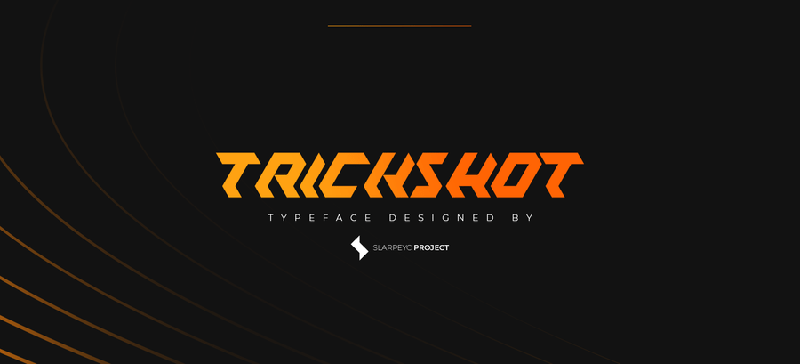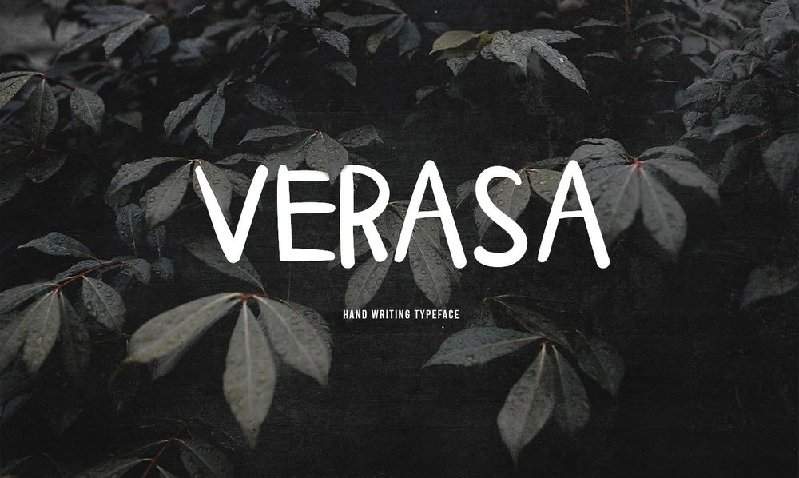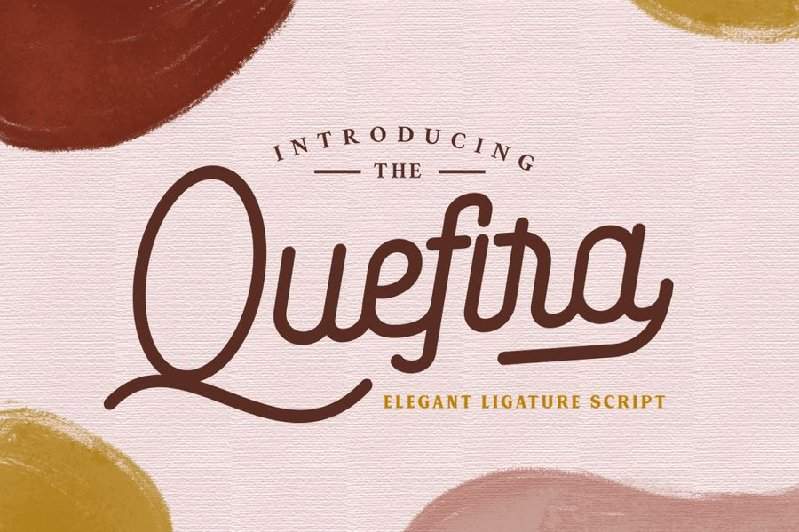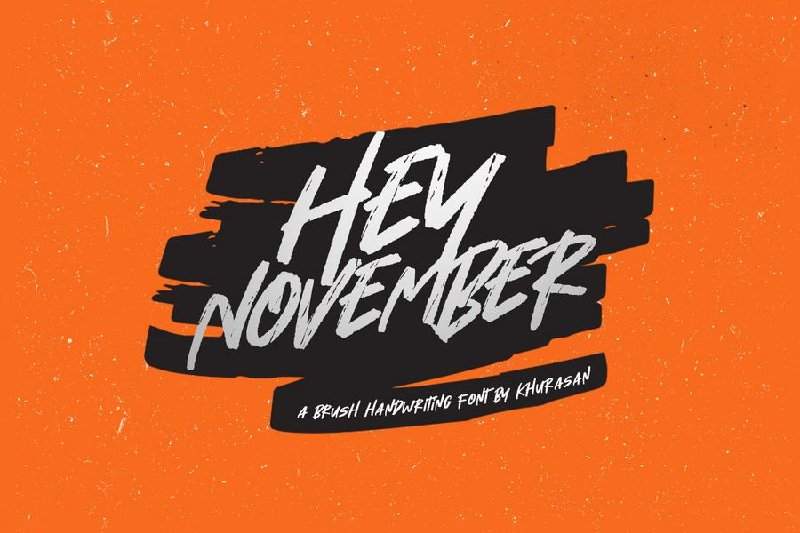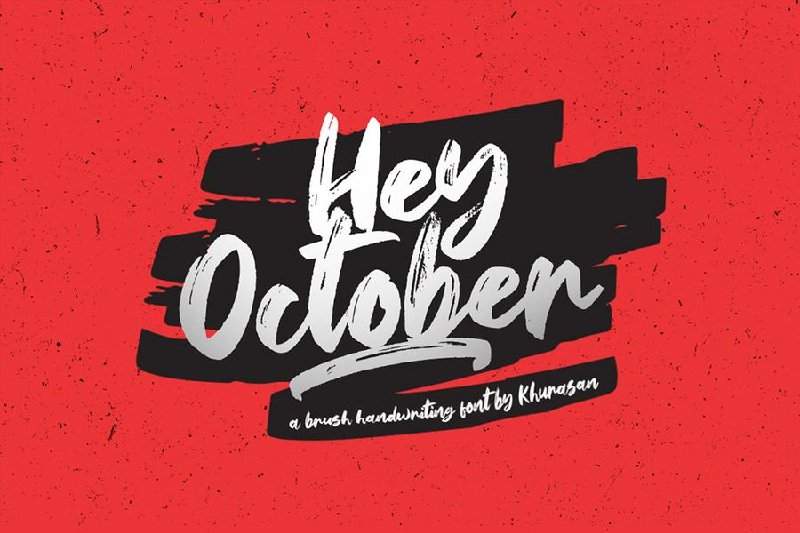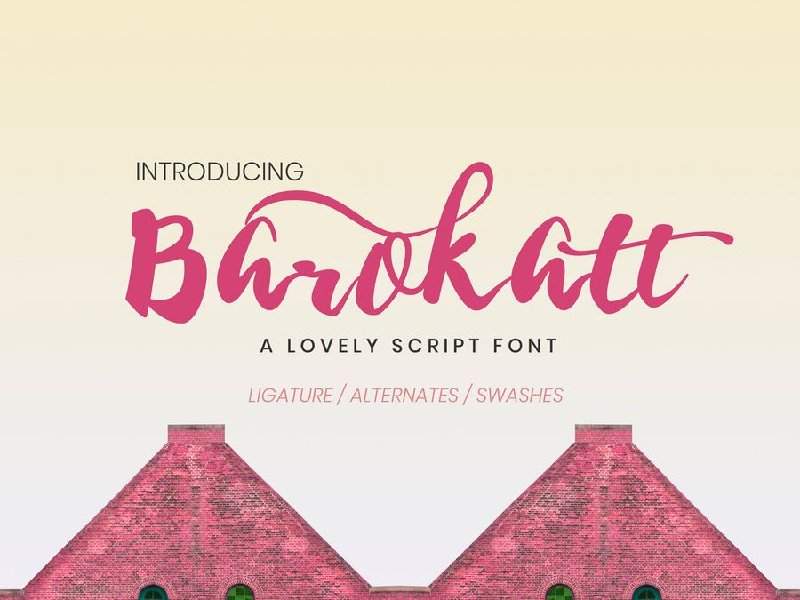
Curated Collection of Stunning Free Fonts for Designers
Every creative project deserves the perfect font to bring the design to life. Whether you’re working on branding, web design, or social media graphics, the right typeface can dramatically improve your work. A strong font library is essential for any designer, helping your projects stand out with style and professionalism.
Why Designers Need Free Fonts
Using free fonts allows designers to experiment with different typography styles without worrying about budget constraints. From modern sans-serif to decorative serif fonts, having access to a diverse font collection ensures your design projects remain fresh and unique. These free fonts for designers are ideal for both digital and print projects, including logos, posters, presentations, and web interfaces.
Explore Our Handpicked Free Fonts Collection
Our curated collection of stunning free fonts features top-quality typefaces for all creative needs. This selection includes bold display fonts, elegant script fonts, playful handwritten fonts, and versatile sans-serif fonts — all ready to enhance your branding, web, and graphic design projects.
By using this curated font collection, you can elevate your designs, improve readability, and add a unique personality to your projects. These stunning free fonts are an essential tool for any designer, whether you’re a beginner or a seasoned professional.
1. Saitama Casual Script
Saitama is a stunning handcrafted font that includes uppercase and lowercase letters, numbers, punctuation, special characters, and multilingual support.
This versatile typeface is perfect for a wide range of design uses — from posters and apparel to headlines, logos, business cards, packaging, brochures, flyers, stationery, t-shirts, magazine covers, and more. Whether you’re working on branding or editorial design, Saitama brings a stylish and authentic handmade feel to your typography.
2. My friend free font
This elegant handwritten font is available completely free — and best of all, it’s licensed for both personal and commercial projects. Whether you’re designing logos, invitations, social media graphics, or product packaging, this stylish script font adds a personal and creative touch to any design.
3. Quefira Script
Quefira Script is a clean and minimalist script font featuring elegant ligatures and alternate styles. It’s perfect for logos, quotes, and much more!
4. Hey November Brush
This rugged handwritten font features a bold and powerful character. It includes uppercase letters, alternate uppercase styles, numbers, punctuation marks, symbols, and multilingual support.
5. Hey October Brush
This creative and authentic dry calligraphy font boasts a bold and distinctive personality. It includes uppercase and lowercase letters, numbers, punctuation marks, symbols, and multilingual support.
6. PORÃO
This is a gritty underground street font that comes in four styles: Regular, Serif, Embedded, and Grottesche. Porão is ideal for posters, apparel, headlines, branding, logo design, product packaging, and much more.
7. Barokatt
Barokatt is a stunning signature font, perfectly suited for branding, invitations, stationery, wedding designs, social media posts, advertising, product packaging, label design, photography, watermarks, special events, and much more.
8. Emberly Typeface
A free and elegant font designed to enhance your outstanding design projects.
9. Belgian
This chic, modern calligraphy font is perfect for branding, wedding invitations and cards, label design, and much more. The Belgian signature includes OpenType features that give you the freedom to elevate your typography game.
10. Bareona font
This handwritten typography is inspired by the traditional lettering found on signs of Brazilian street bars and restaurants. It comes in OTF format, featuring essential characters and multilingual support.
11. Architectural
A free, high-quality condensed display font perfect for your design projects.
12. Maniac Letters
Inspired by the animated adventure game “Tentacle Day.” This font is completely free and intended for non-commercial use only.
По мотивам мультфильма приключенческая игра «День щупальца». Этот шрифт некоммерческий и на 100% бесплатный.
13. TrickShot
21. Verasa font
Verasa is a modern and eye-catching typeface that’s ideal for strong, clean typography. Whether you’re designing posters, headlines, branding materials, or digital graphics, Verasa delivers clarity and impact.